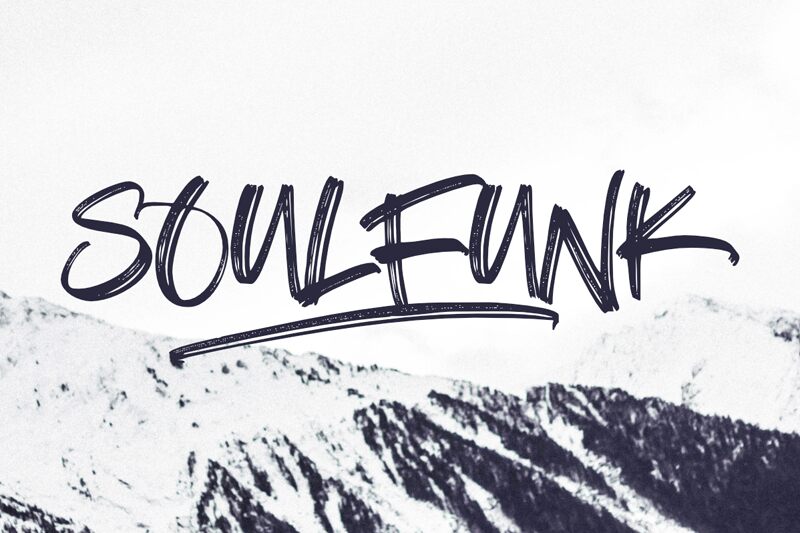
Soulfunk, the vibrant creation of olivetype, is a captivating brush and marker font that exudes energy and artistic flair. Its semi-expanded width adds a touch of modernity to the design. This versatile typeface is perfect for projects that demand a bold and expressive statement. From album covers and music posters to edgy fashion magazines and graffiti-inspired artwork, Soulfunk injects soulful rhythm into every stroke. Embrace its dynamic charm to amplify your brand's identity or give your creative endeavors an electrifying boost. Let Soulfunk unleash the power of typography in all its mesmerizing glory!